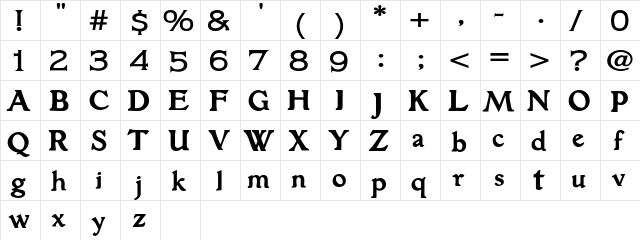
AlpenhornSSK Bold
Design Context for AlpenhornSSK Typeface
AlpenhornSSK offers clean, dependable letterforms without strong stylistic allegiance, making it a practical choice for designers who need flexibility. Its bold stroke weight gives it real presence on the page.